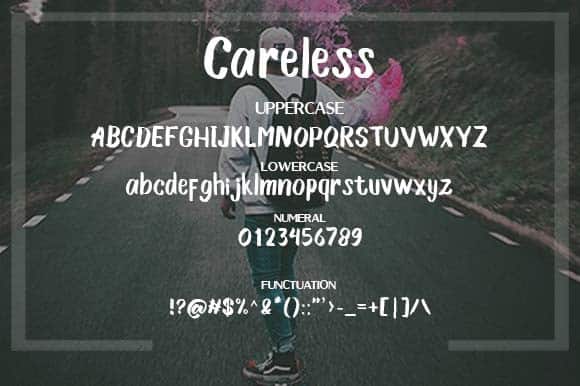
Careless Brush Font
Careless Brush Font is a hand written style brush-lettered font with natural lines and edges.
Quirky, marker style comes to expression through unique handmade font which comes complete with a full set of upper characters, numbers, a selection of special characters and some variations. These variations can give every text a unique character and a nice flow, thus making it look original.